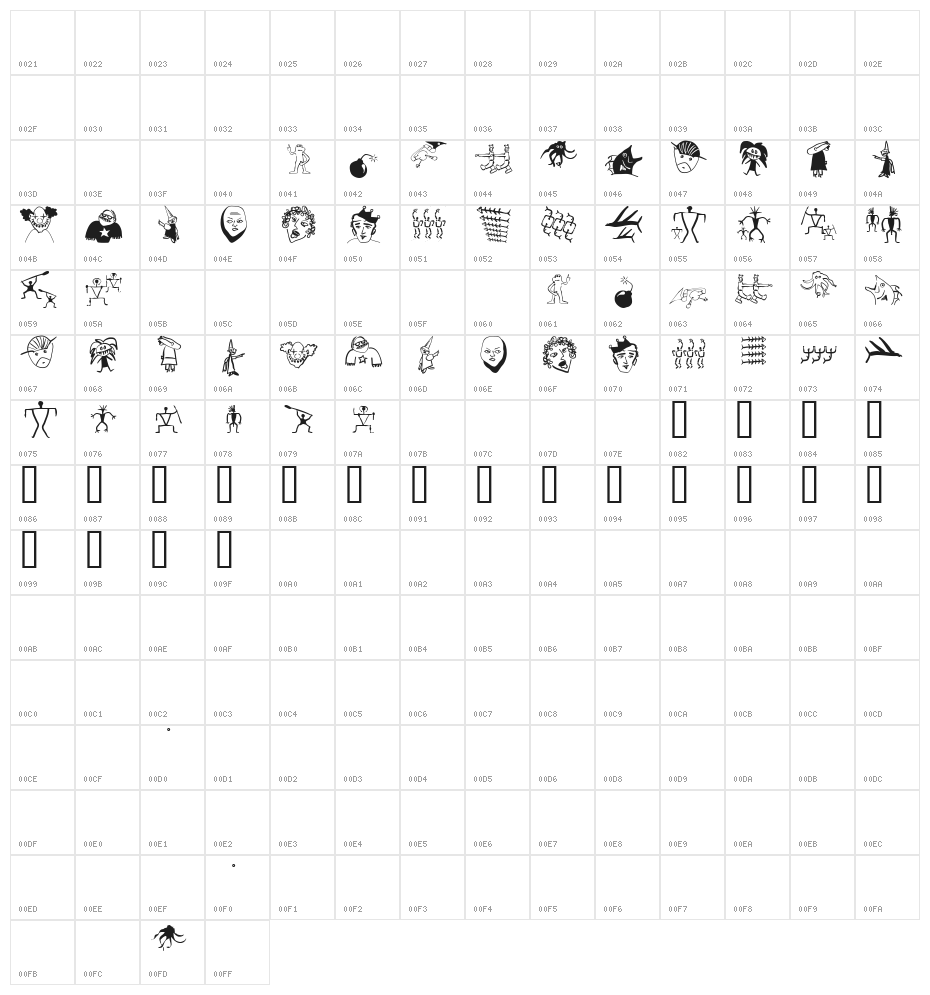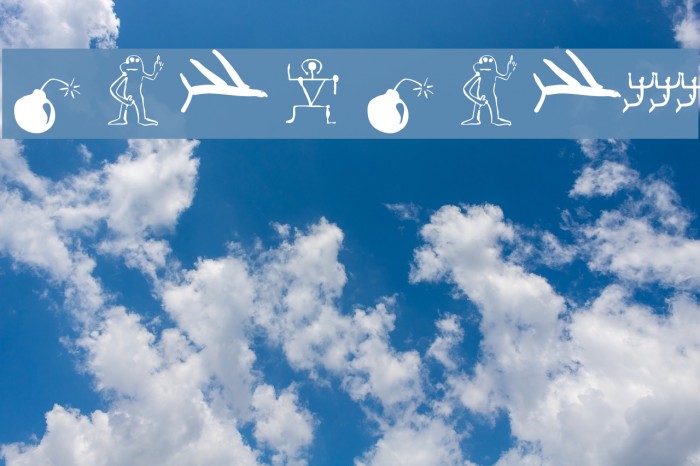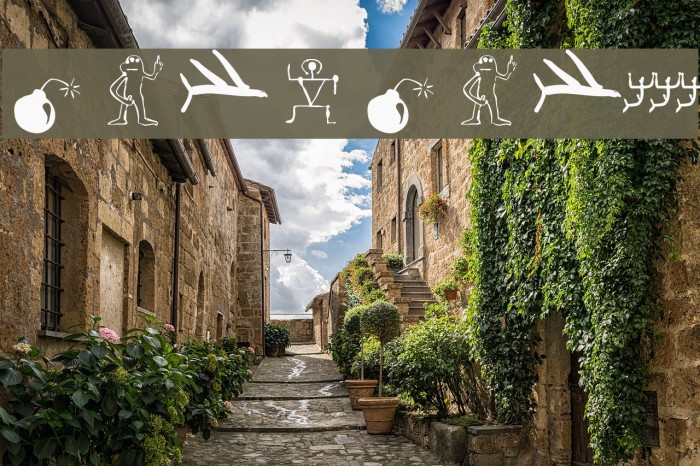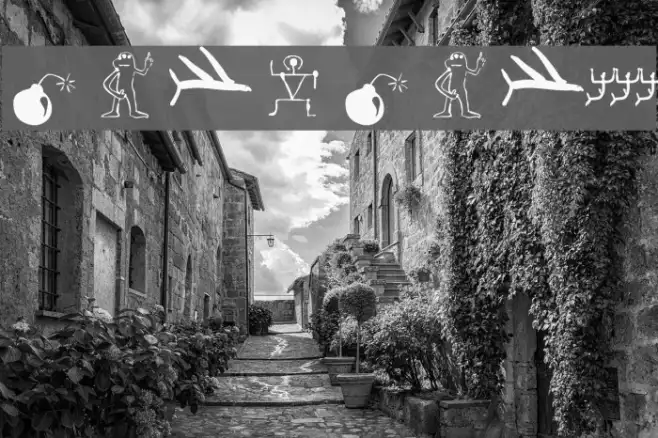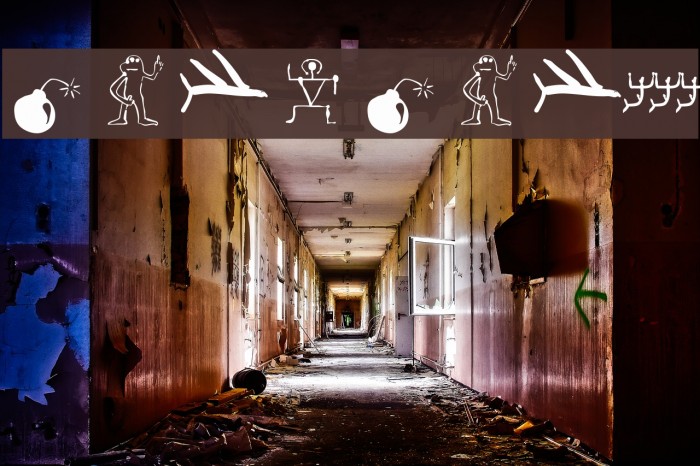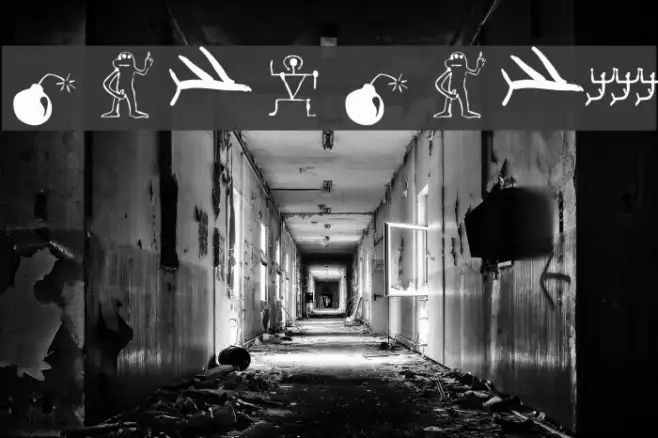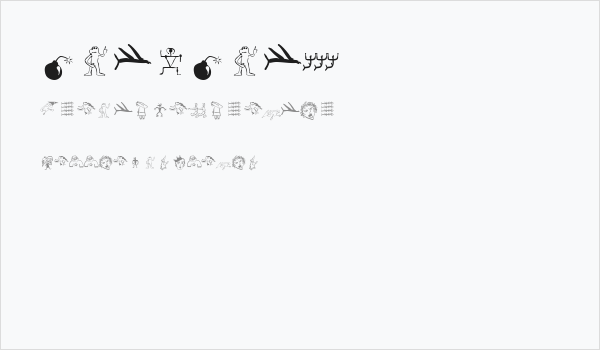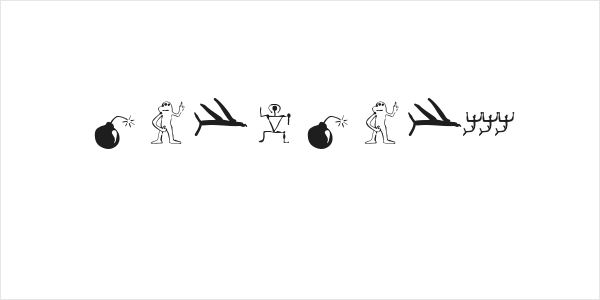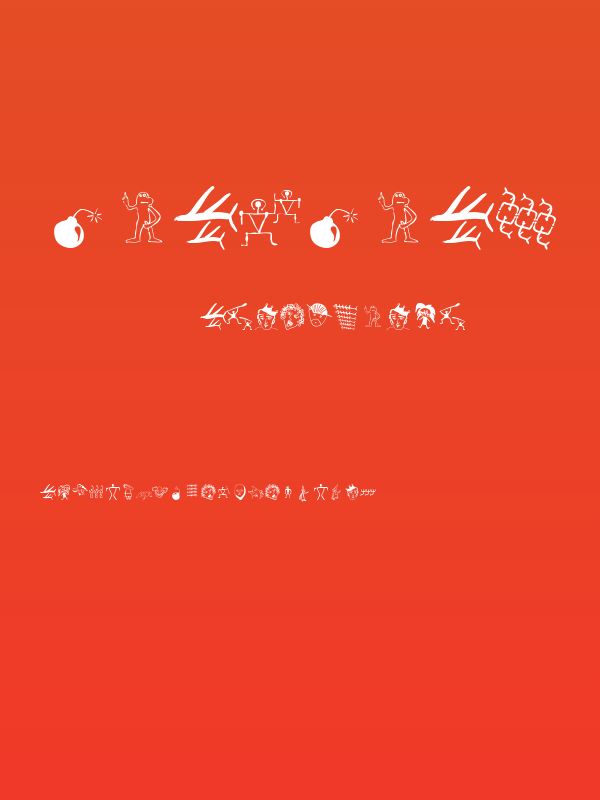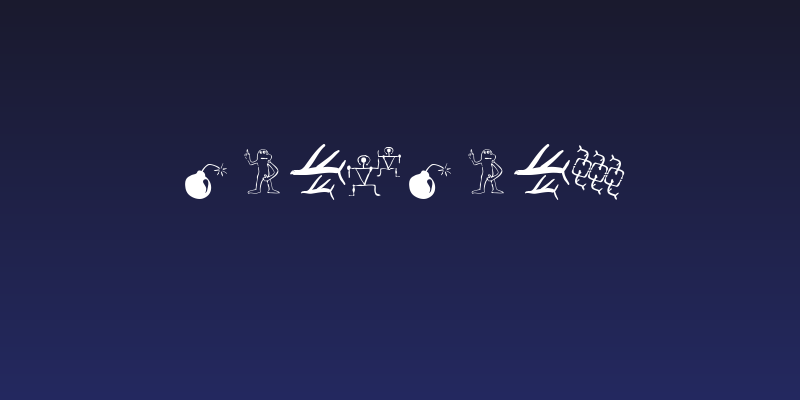
BatzBats Font
BatzBats Description
A highly decorative and illustrative dingbat font featuring whimsical, cartoon-like characters, faces, and abstract figures instead of traditional alphanumeric glyphs. Each symbol is unique, with playful and expressive line work.
| Overall Style | Decorative, Playful, Cartoonish |
| Use Case | Icons, Decorative elements, Themed graphics |
| Proposed Projects | ChildrenΓ’β¬β’s books, party invitations, comic strips, playful branding, creative posters. |